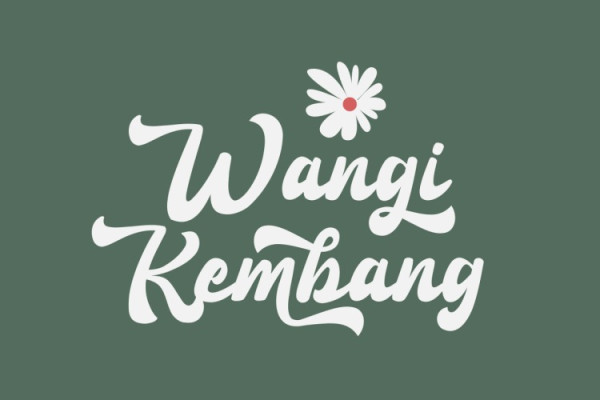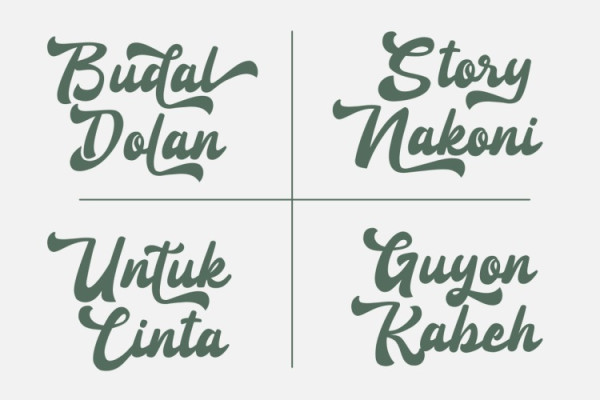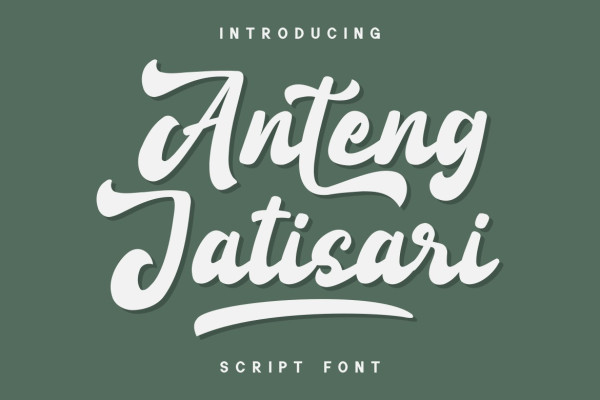
Anteng Jatisari Font
Anteng Jatisari Font is a cool, vintage-style handwritten font. Use it to add that special retro touch to any design idea! It can be used for logos, branding, invitations, stationery, wedding designs, social media posts, and much more!